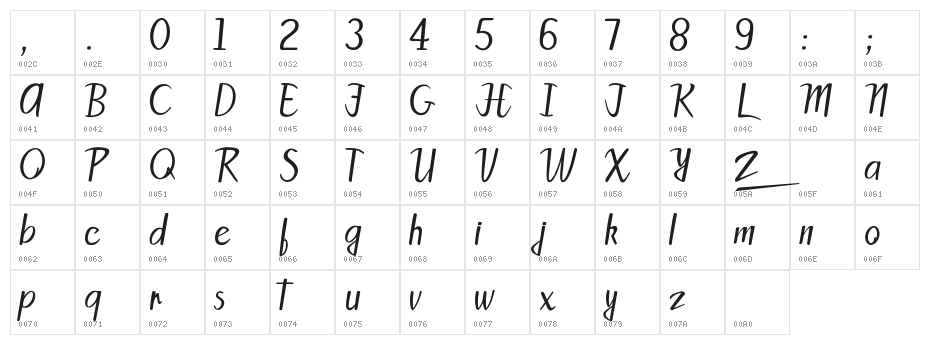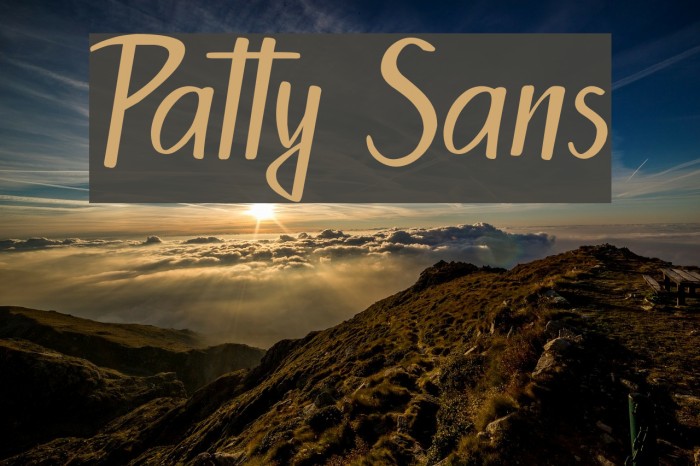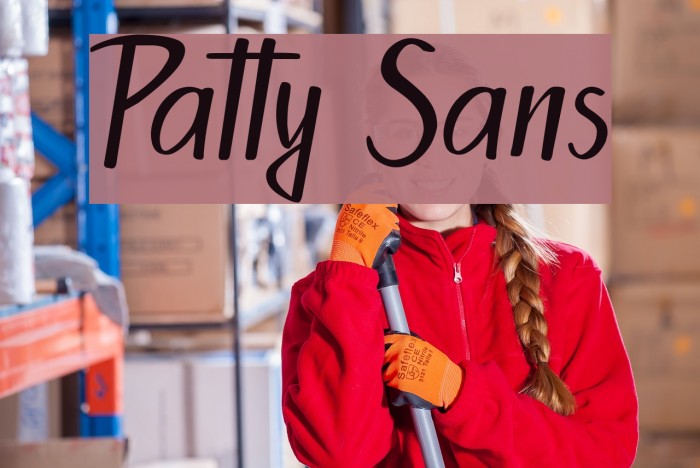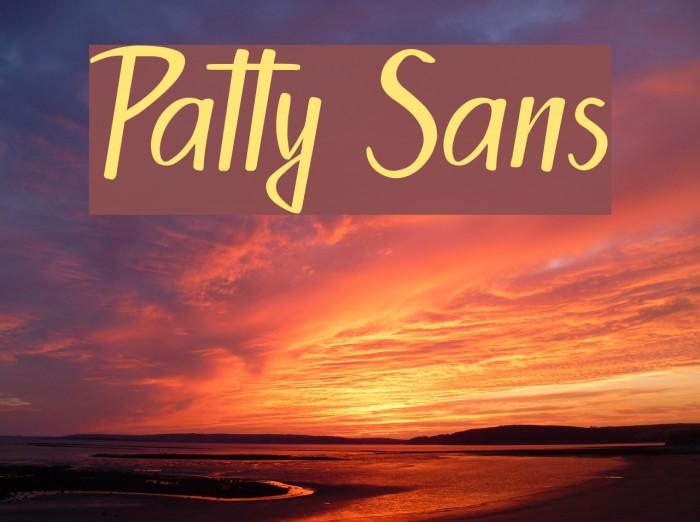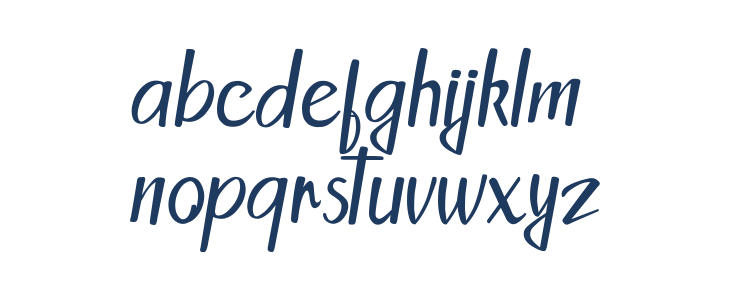
Patty Sans Font
Patty Sans Description
This font features a playful and dynamic style with a handwritten feel. The letters have a slight slant, giving them a sense of movement and energy. The strokes are smooth and fluid, with varying thickness that adds a touch of elegance. The uppercase letters are bold and prominent, while the lowercase letters maintain a consistent flow. The numbers are clear and easy to read, matching the overall style of the alphabet. Special characters are included, maintaining the same playful and energetic design.
Jaime Rangel Castro
| Proposed Projects | Ideal for creative projects such as greeting cards, invitations, posters, and branding materials that require a lively and personal touch. |